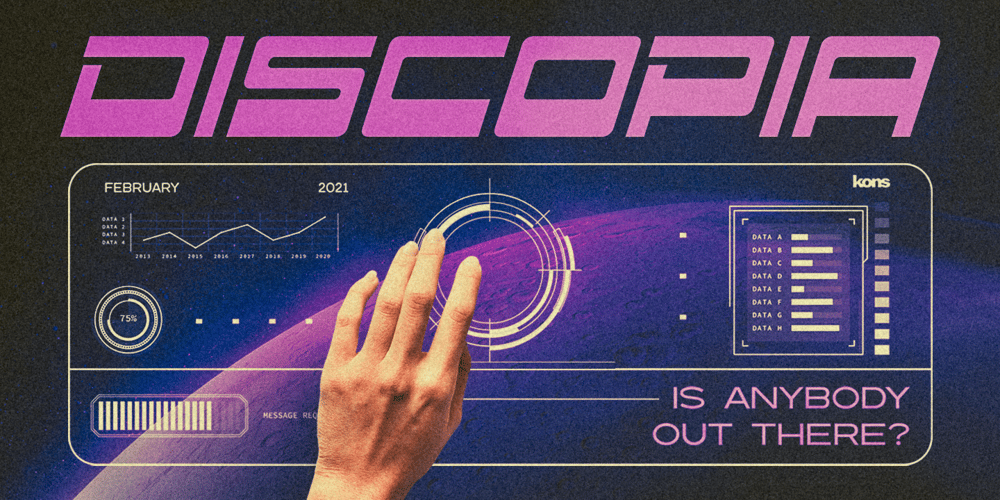
Discopia Font Family was designed by Abdilah and published by Konstantine Studio. Discopia contains 1 styles and family package options. The invasion of futurism is begun. Came out prepared with our latest fonts collection, Discopia. Inspired by the visual of futuristic and techno-based design from the latest and upcoming trends.Perfectly fit for your gaming logo, branding, techno branding, digital assets, game design, UI, UX, synthwave, vaporwave, futuristic poster, contemporary typographic design, techwear apparel, vehicles design, prototype concept, anything you need a boost to the future, Discopia is here.